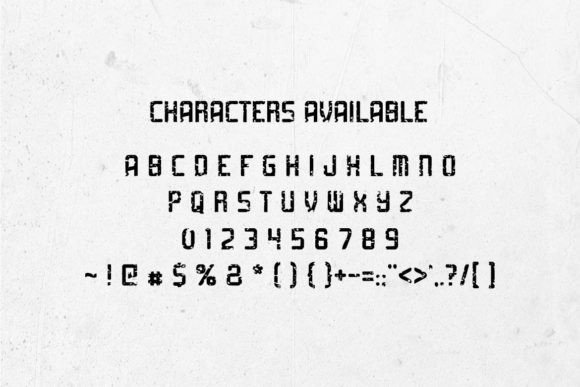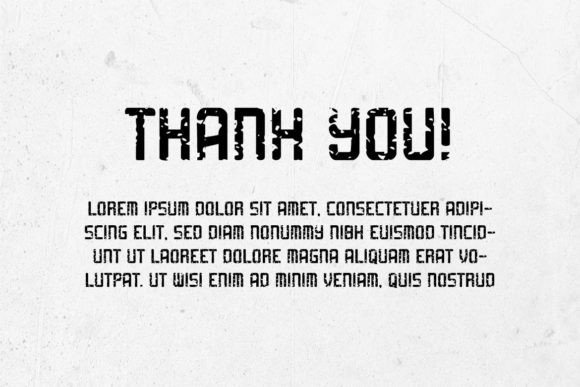
Brain Volt Font: The Ultimate Display Font for Creative Projects
Are you a designer or crafter looking for a unique and versatile font to elevate your creative projects? Look no further than Brain Volt Font! This stunning display font is perfect for a wide range of applications, from posters and cards to book titles, headlines, banners, flyers, stationery, and more.
What is Brain Volt Font?
Brain Volt Font is a distinctive and eye-catching display font designed to make a statement. Its unique style and versatility make it an ideal choice for designers and crafters who want to add a touch of personality to their work. Whether you’re creating a bold poster, a elegant book title, or a catchy headline, Brain Volt Font is sure to impress.
Key Features of Brain Volt Font
- Unique Style: Brain Volt Font boasts a one-of-a-kind design that’s sure to grab attention.
- Versatile: Perfect for a wide range of creative projects, from print materials to digital applications.
- Easy to Read: Despite its unique style, Brain Volt Font remains clear and easy to read, even at smaller sizes.
- Highly Customizable: Experiment with different colors, textures, and effects to make Brain Volt Font truly your own.
Uses for Brain Volt Font
Brain Volt Font is an incredibly versatile font that can be used in a variety of creative projects, including:
- Posters: Create eye-catching posters for events, promotions, or advertising campaigns.
- Cards: Design beautiful greeting cards, invitations, or business cards that make a lasting impression.
- Book Titles: Add a touch of elegance to your book titles, perfect for fiction, non-fiction, or children’s books.
- Headlines: Use Brain Volt Font to create bold and attention-grabbing headlines for news articles, blogs, or websites.
- Banners: Design stunning banners for events, sales, or promotions that demand attention.
- Flyers: Create effective flyers for marketing campaigns, events, or product launches.
- Stationery: Elevate your stationery designs with Brain Volt Font, perfect for letterheads, invoices, or notebooks.
Why Choose Brain Volt Font?
With so many fonts available, why choose Brain Volt Font? Here are just a few reasons:
- Stand Out: Brain Volt Font is designed to help you stand out from the crowd and make a lasting impression.
- Easy to Use: This font is incredibly easy to use, even for those without extensive design experience.
- High-Quality: Brain Volt Font is a high-quality font that’s designed to deliver exceptional results.
Tips for Using Brain Volt Font
To get the most out of Brain Volt Font, here are a few tips:
- Play with Sizes: Brain Volt Font looks great at a variety of sizes, so don’t be afraid to experiment.
- Combine with Other Fonts: Pair Brain Volt Font with other fonts to create a unique and visually appealing design.